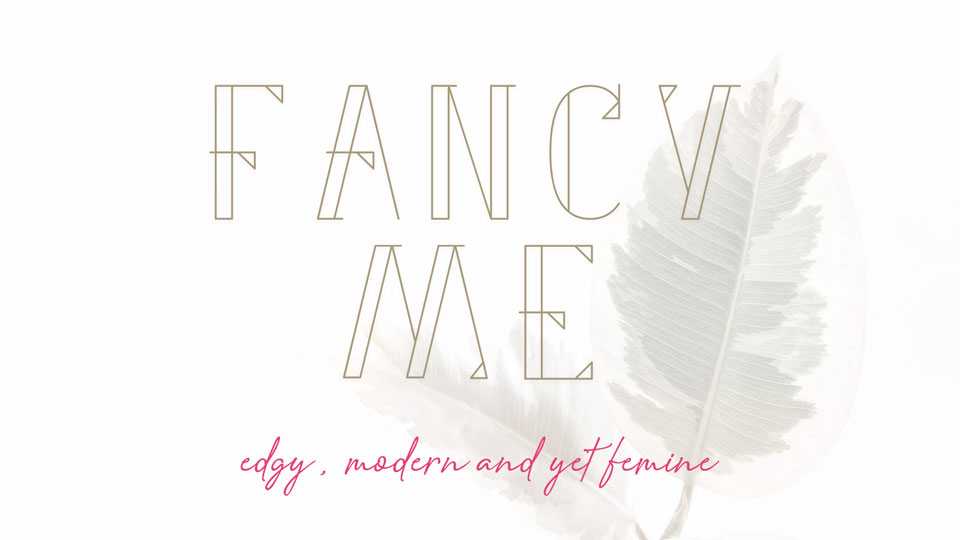
Download Fancy Me font, an elegant typeface, featuring a mix between edgy, modern and yet femine. It could look great in editorial designs, also great for branding and social media and other creative typographic projects.
Designer: Marie-Michelle Dupuis